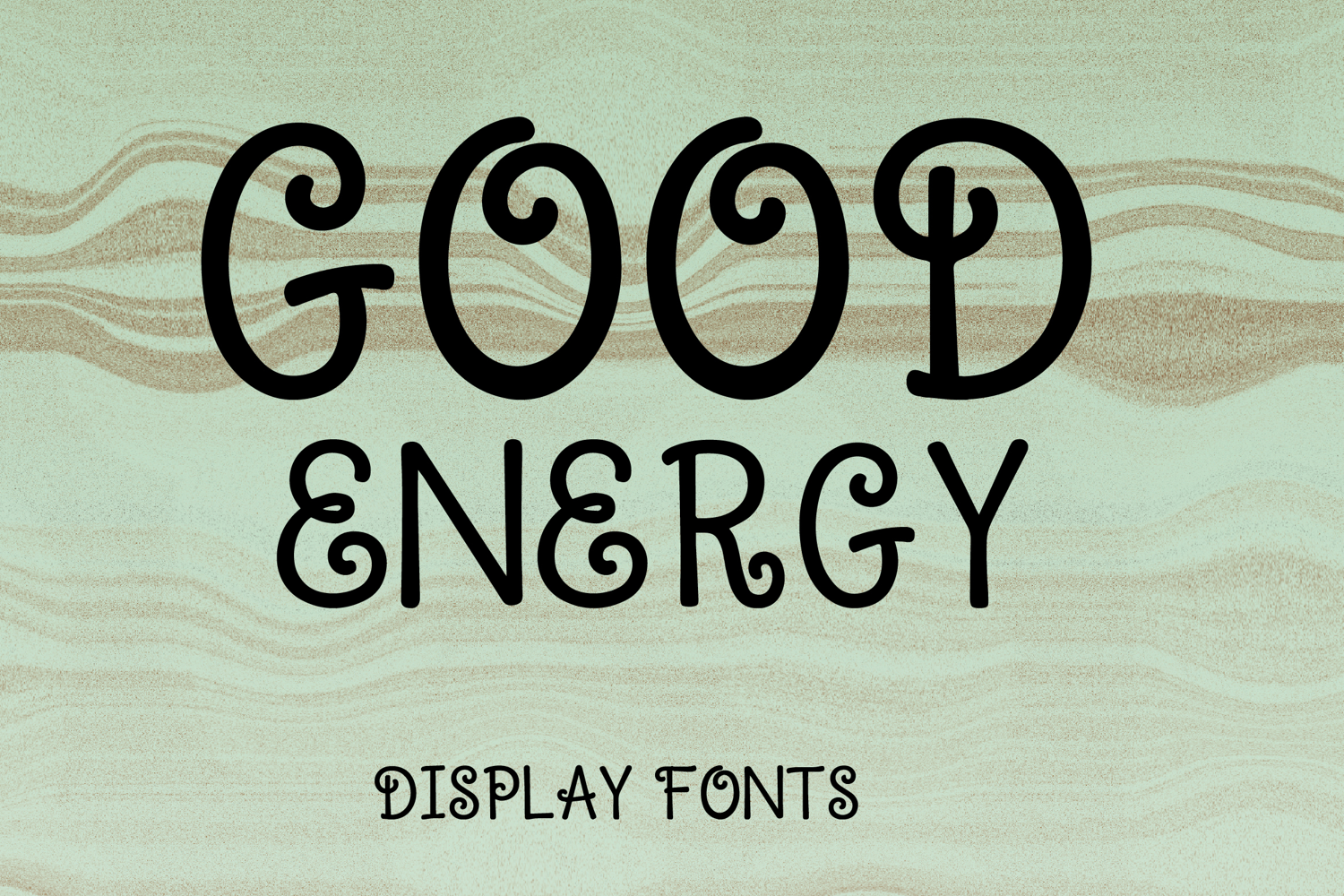
GOOD ENERGY
GOOD ENERGY is a playful decorative display font with a whimsical hand-drawn style and cheerful artistic charm. Its uppercase letterforms feature tall slender shapes, smooth rounded strokes, and lively spiral details that create a fun, friendly, and eye-catching look. Designed with uppercase letters A–Z and numbers 0–9, GOOD ENERGY is perfect for branding, posters, packaging, invitations, logos, social media graphics, and creative projects that need a joyful and memorable statement.
GOOD ENERGY